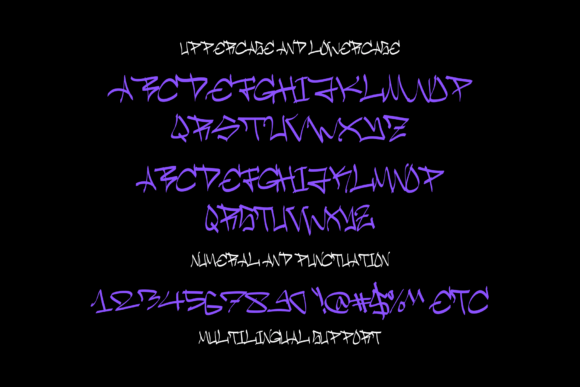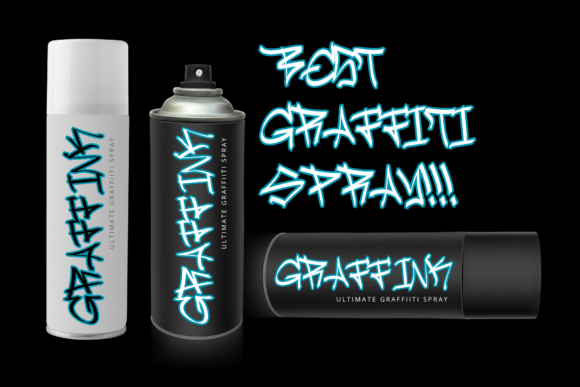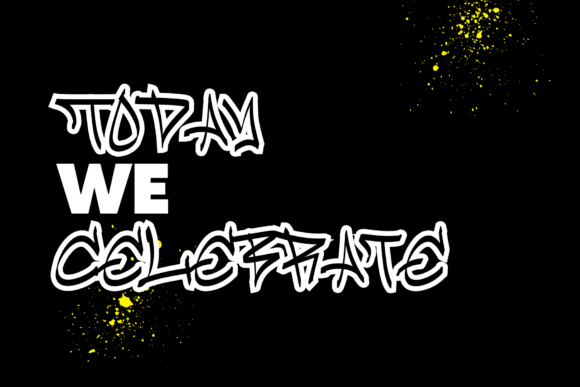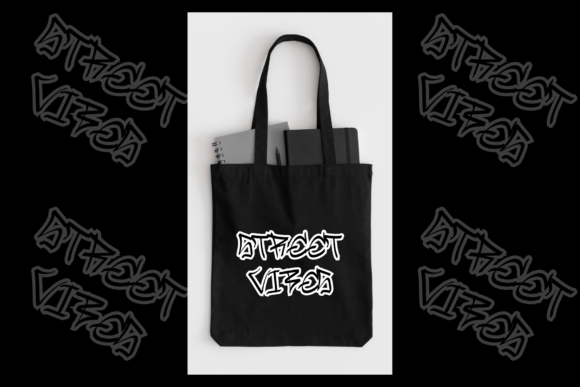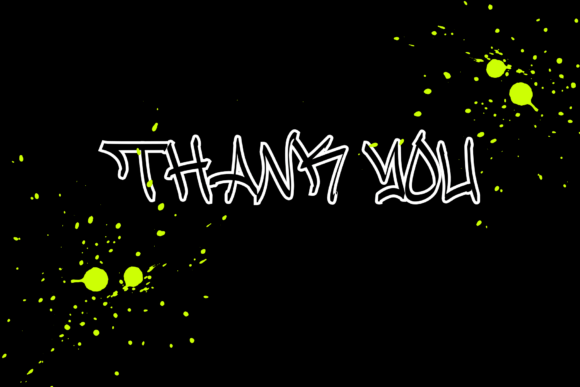
Introduction to Blacked Street Font
Immerse yourself in the enchanting realm of Blacked Street, a graffiti font whose essence sends ripples throughout the design community.
Blacked Street embodies a unique stylistic perception that echoes the raw vitality of street art, blending flawlessly with natural, handcrafted strokes This elegantly evolved typeface meets a array of design needs, turning commonplace visual concepts into modern masterpieces.